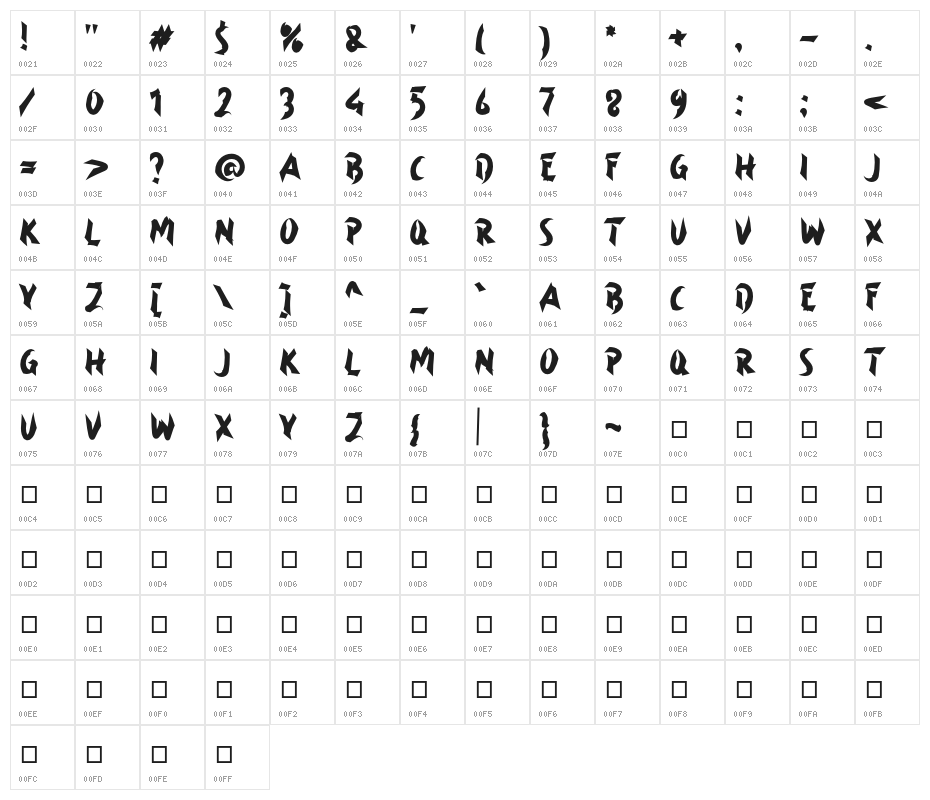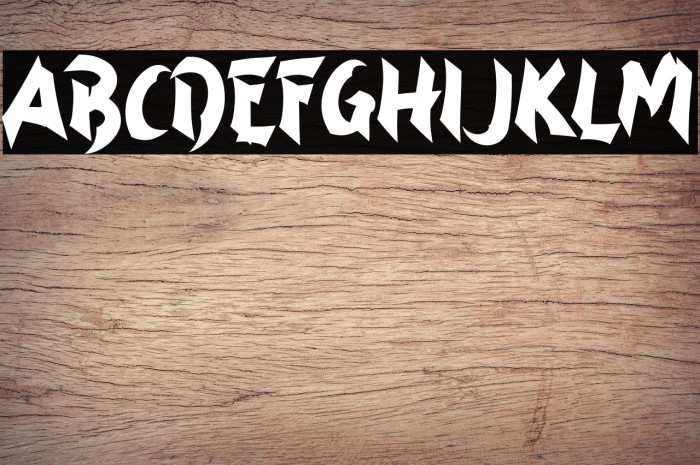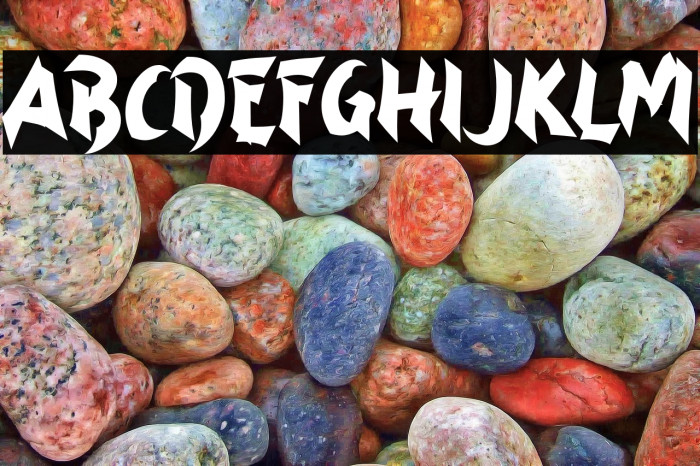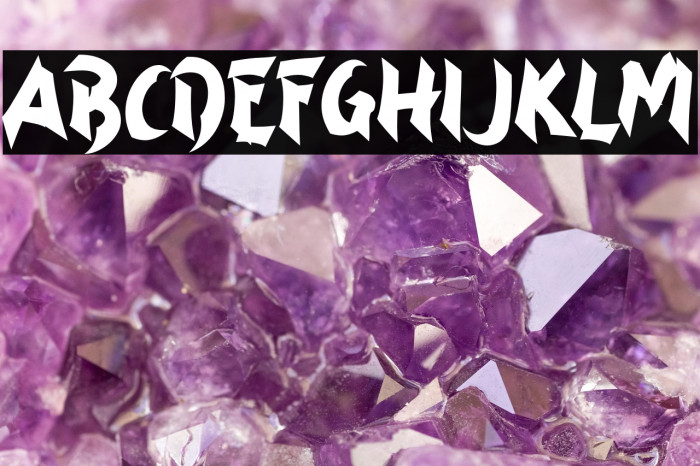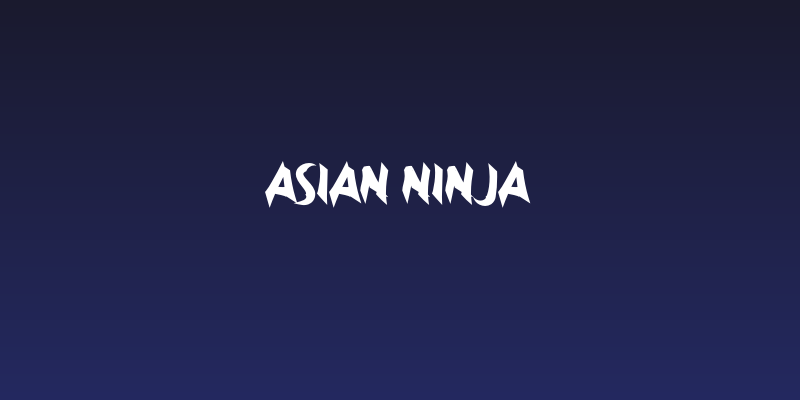
Asian Ninja Font
Asian Ninja Description
This font features a bold and dynamic style with sharp, angular edges and a distinctively aggressive appearance. The characters are designed with a high level of contrast, where thick strokes are juxtaposed with thin, sharp points, creating a sense of movement and energy. The overall design is reminiscent of traditional Asian calligraphy, infused with a modern, edgy twist. The uppercase and lowercase letters maintain a consistent style, with each character exhibiting unique cuts and angles that enhance its striking visual impact. The numerals and special characters follow the same design principles, ensuring a cohesive look across all elements.
| Overall Style | Modern, Edgy |
| Proposed Projects | Ideal for use in video game titles, movie posters, martial arts event branding, or any project requiring a bold, impactful typeface. |